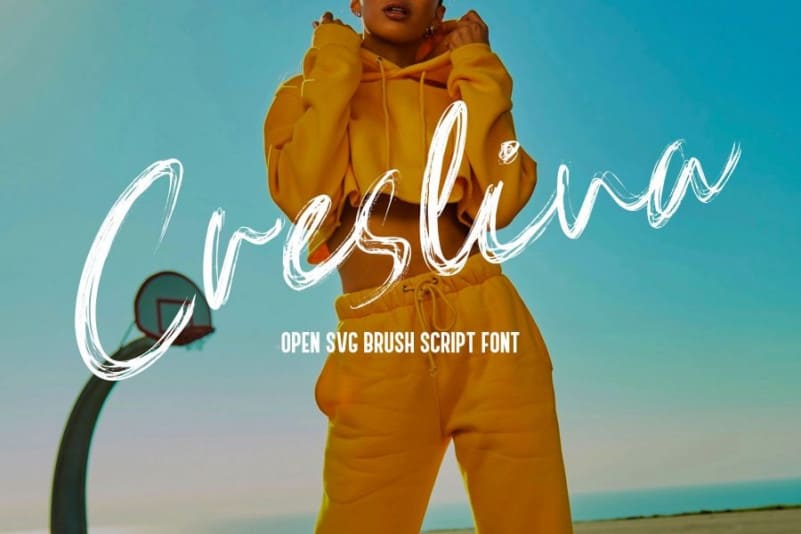
Creslina Brush Font Free
Creslina Brush Font is a beautiful brush script created with brush pen to give a great contrast between thick and thin curves. It has a elegant, classy look and beauty. Made from font designer named Rometheme. It’s a great font for fashion, apparel projects, signature, album cover, logo, branding, magazine, social media, & advertisements, but also works great for other projects.